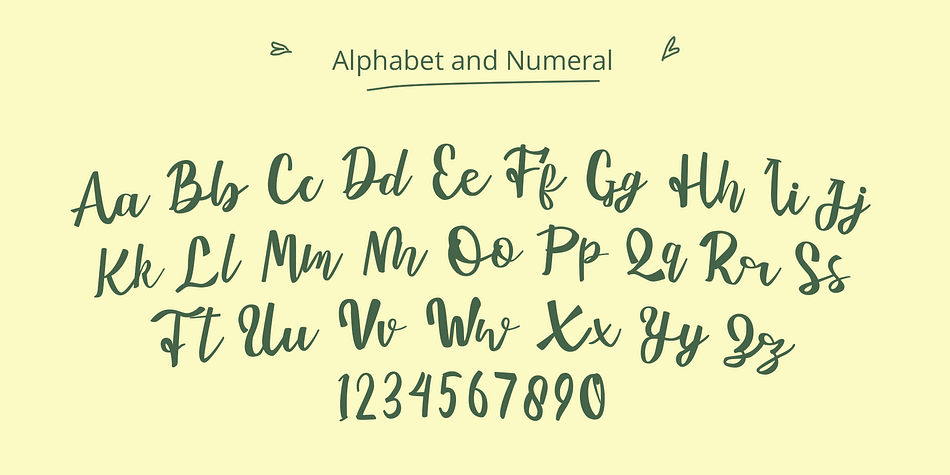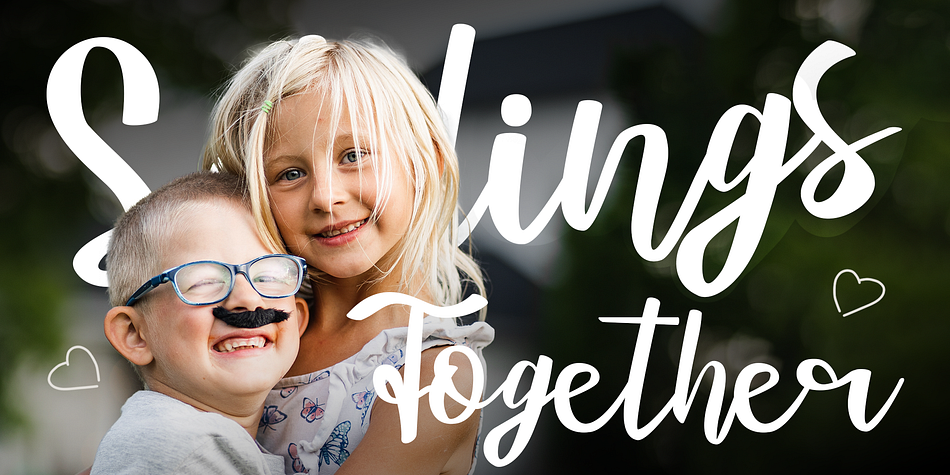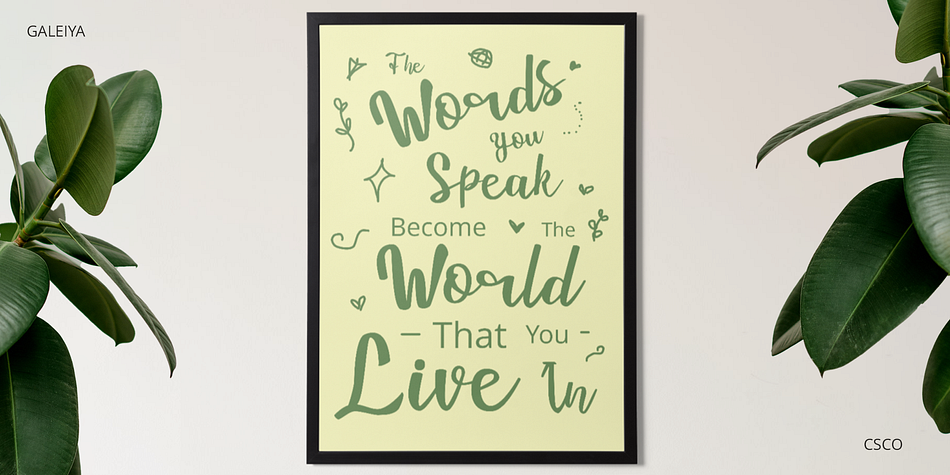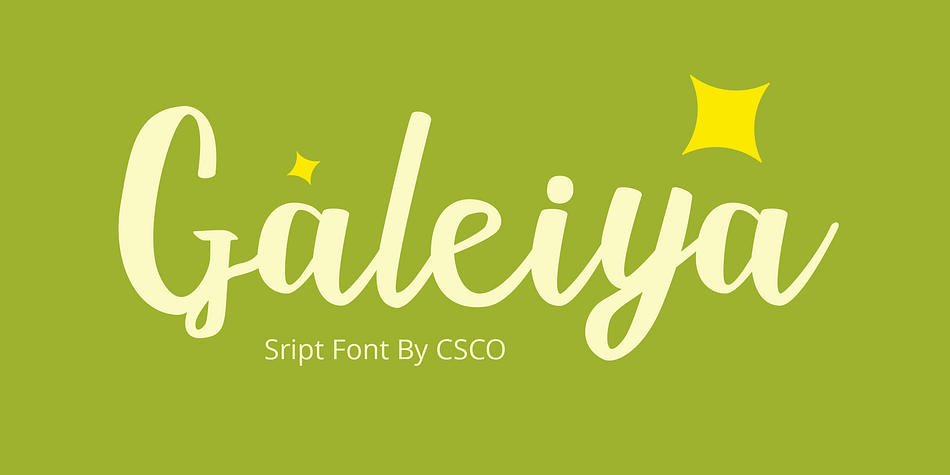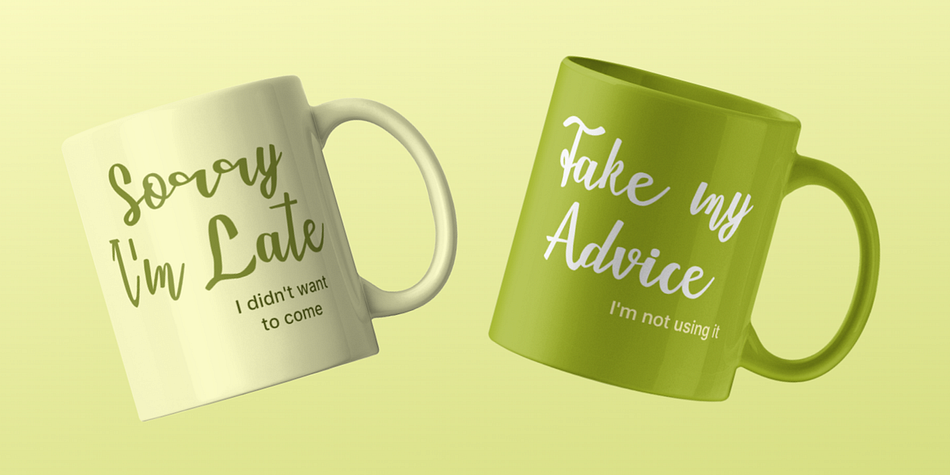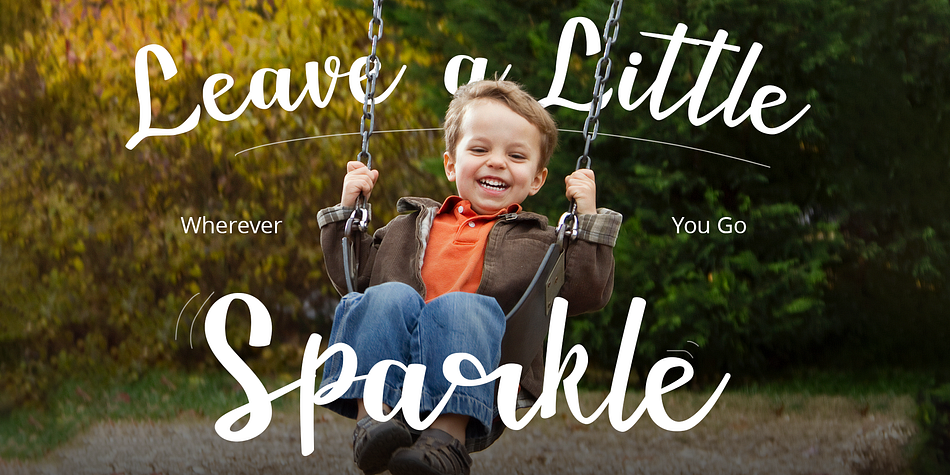
Galeiya
Galeiya is a modern calligraphy font family published by Craft Supply Co.
Introducing Galeiya – Cute Script Font
Adorable Playfulness
Step into the enchanting world of Galeiya – Cute Script Font, where adorable playfulness takes center stage. This font is the embodiment of girly charm and fun.
Joyful Whimsy
Galeiya’s joyful whimsy adds a delightful and whimsical touch to your projects, making it the perfect choice for a wide range of creative endeavors.
Versatile Delight
Beyond its cute appearance, this font is exceptionally versatile. It effortlessly adapts to various design contexts, from invitations to branding, infusing each project with a joyful spirit.